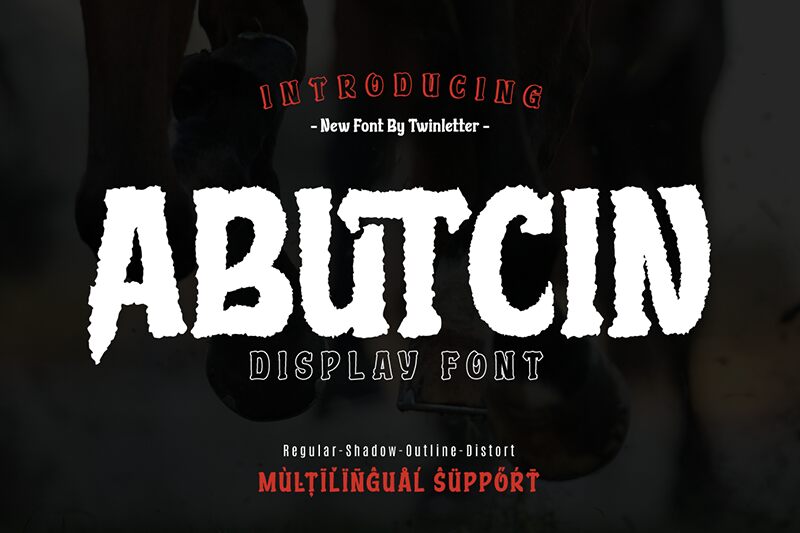
Abutcin font family by twinletter comes in 2 font styles with each bringing its rugged appearance for an impactful effect. Expressive yet still modern enough to be relevant, Abutcin will do wonders on your posters, social media designs, and all other visual arts that require a bold statement. Brush style and grungy texture are 2 elements offered for designers in this font family that’ll set a clear urban/graffiti type feel instantly.
There’s no specific industry that’ll need this font type, as any industry can surely make use of it to refresh its image. Try it in fashion and sports branding, or use it for dynamic titles in magazine covers and music album art. Gaming is definitely a field you should keep in mind as it’ll fit perfectly for game design in logos, website interfaces, etc.